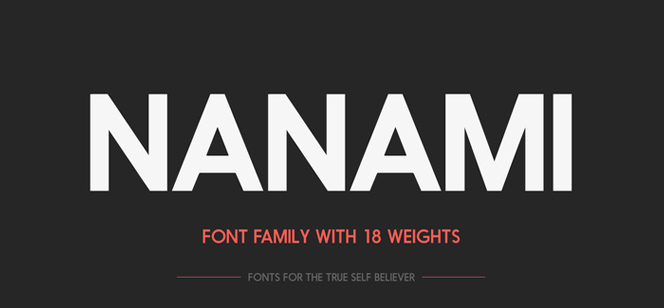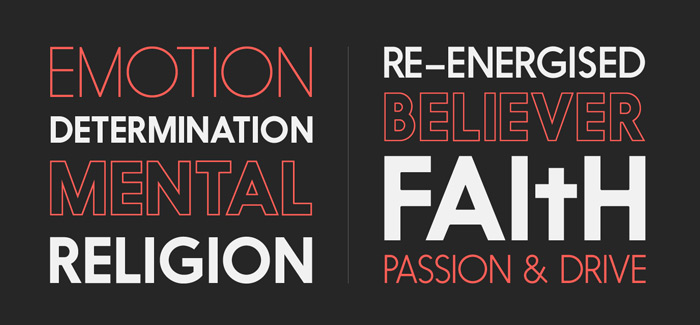
Nanami font
Nanami font is a brand new Japanese inspired type family. Originally influenced by early swiss geometric-style sans serif faces that were popular in use throughout Japan during the 1970s. Nanami consist of 18 individual weights ranging from Thin through to Black. It also has extensive support for over 27 languages, and as a font family that works well both in headlines and bodycopy, Nanami is the perfect choice for a whole variety of creative briefs.